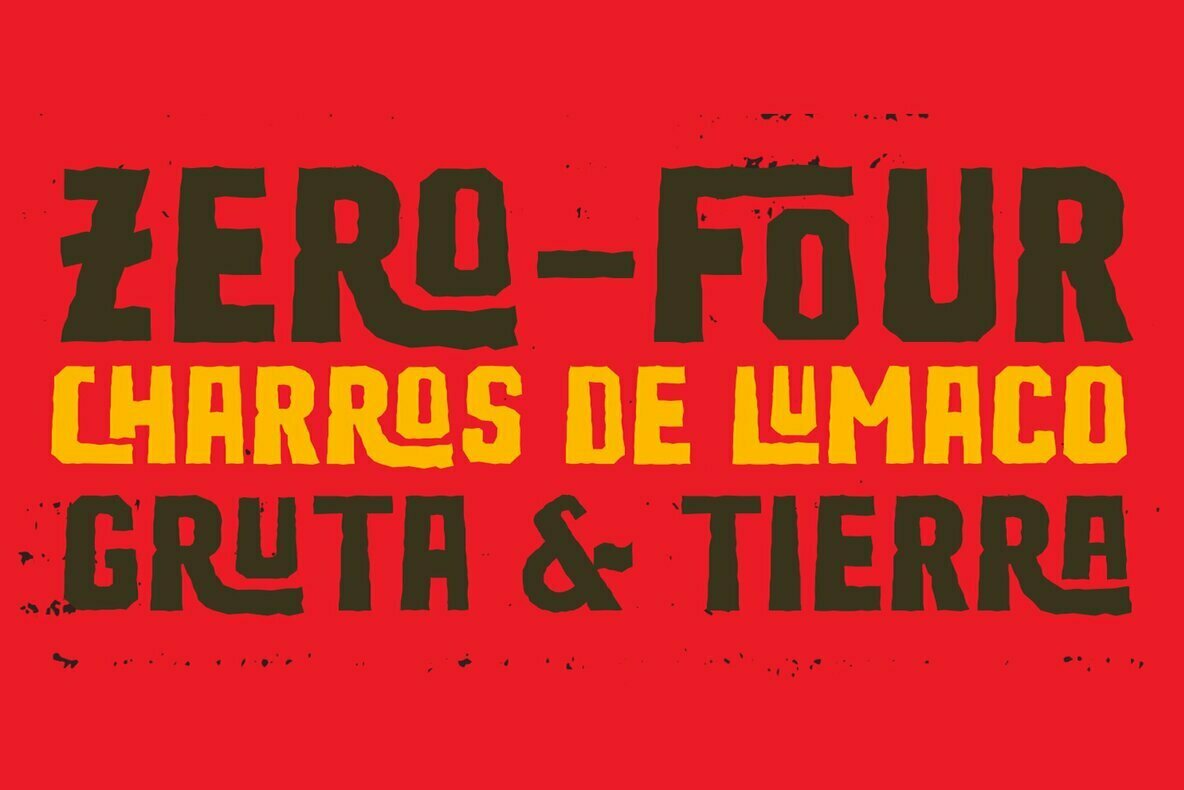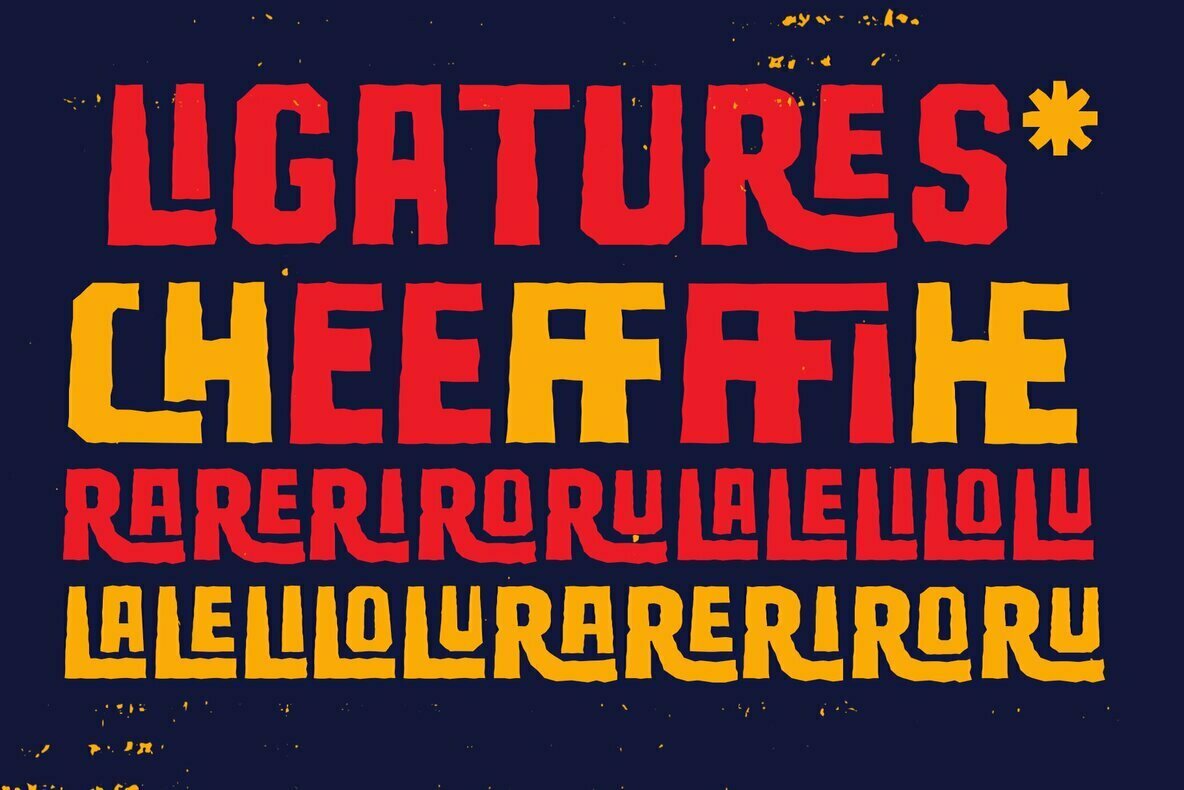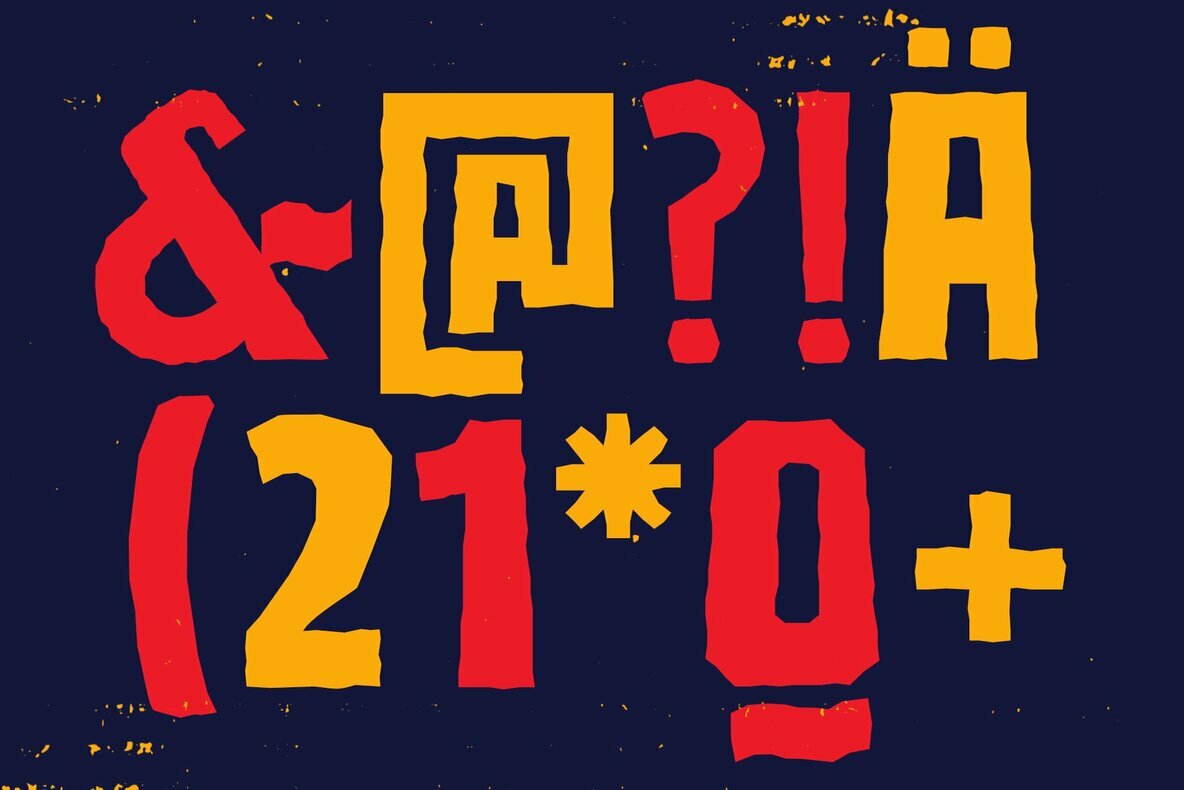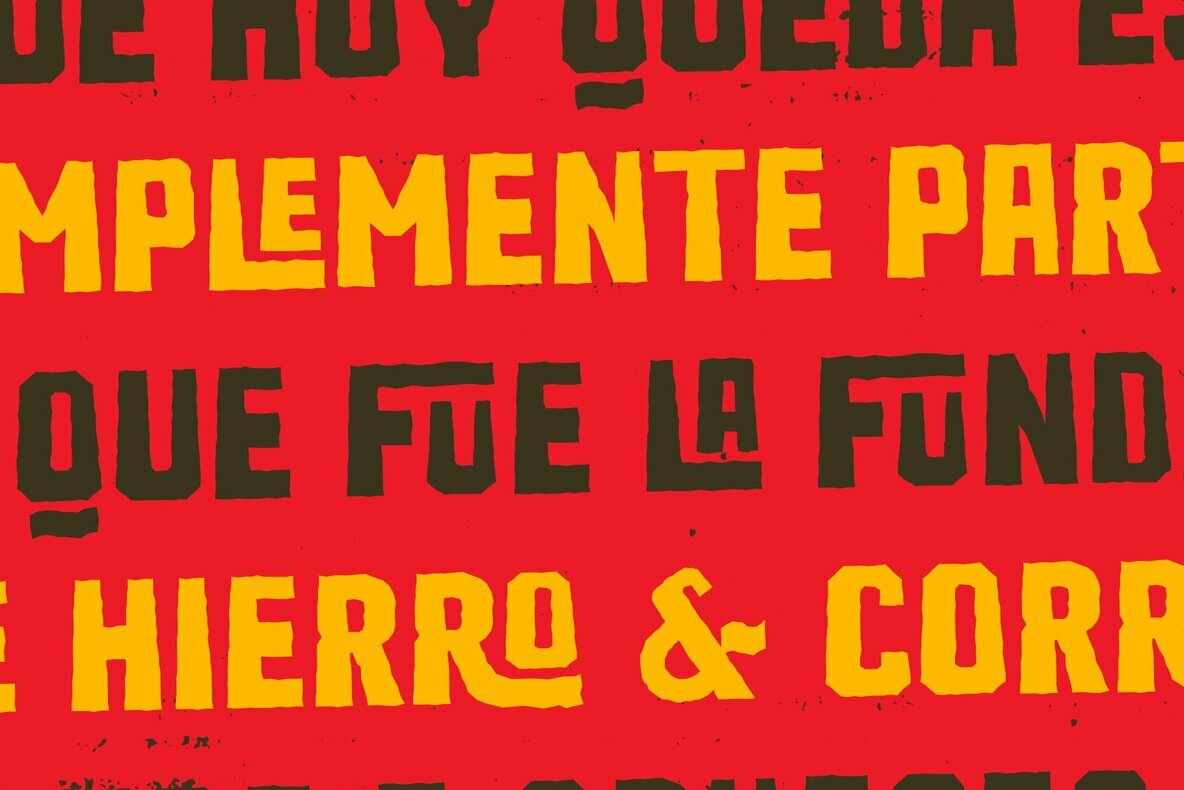
Ruina One Font
Ruina One Regular
Ruina One, crafted by Rodrigo Typo, captures the raw essence of hand-drawn typography with its rugged charm. This font is a valuable asset for designers seeking to infuse their work with a personal touch. Its display style makes it ideal for projects that demand an authentic, eye-catching presentation.Ruina One: A Distinctive Hand Display Font